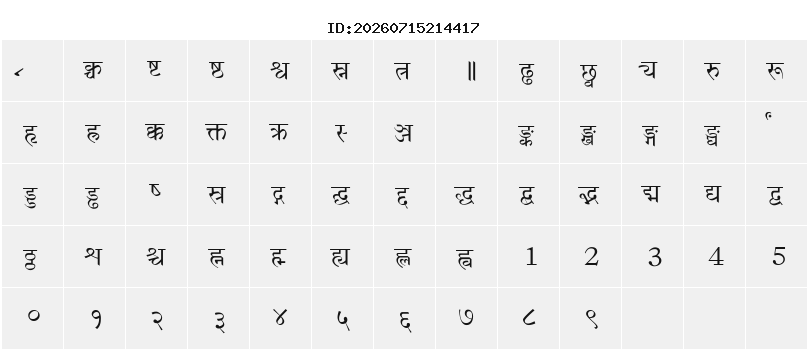
AtamHindi Preview
• Font Name: AtamHindi
• Full Font Name: AtamHindi
About AtamHindi.ttf
AtamHindi.ttf is a modern, elegant sans-serif font designed for ultimate readability and visual harmony. Perfect for branding, headlines, web design, and print materials.